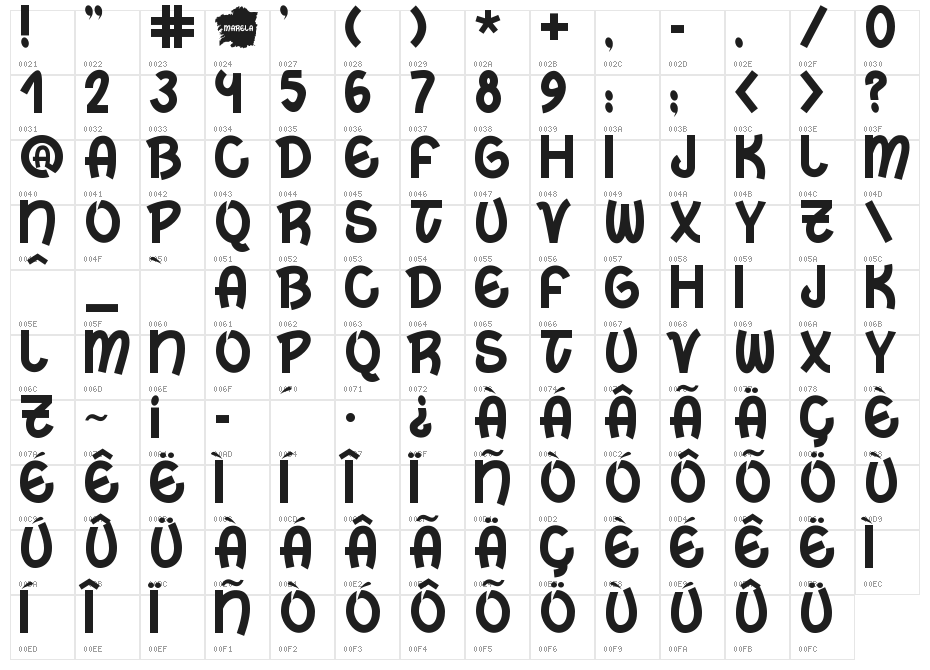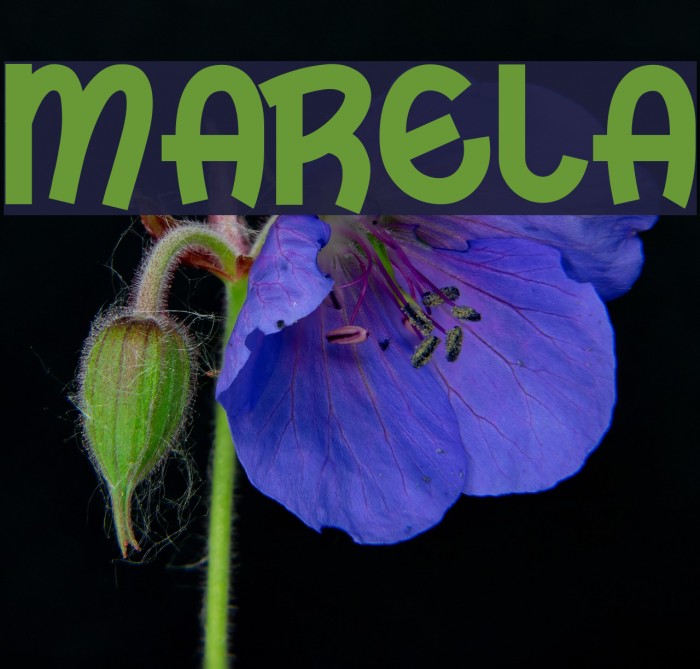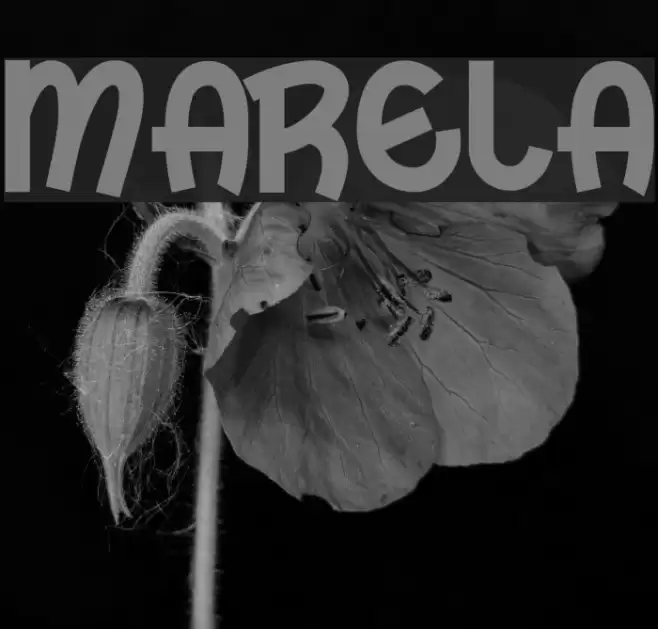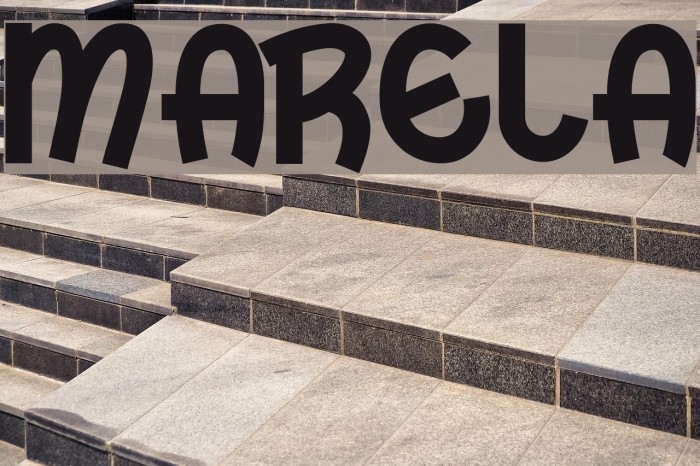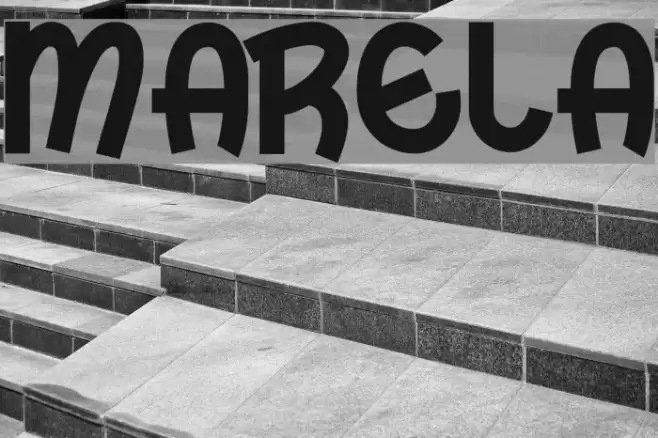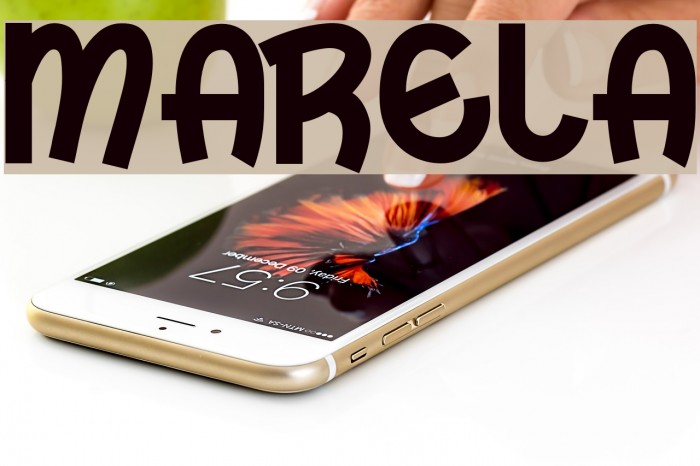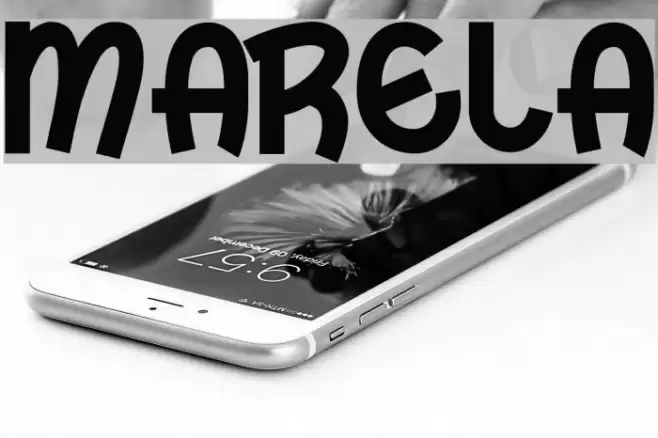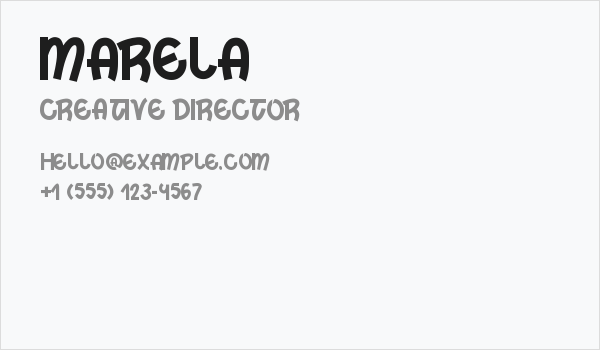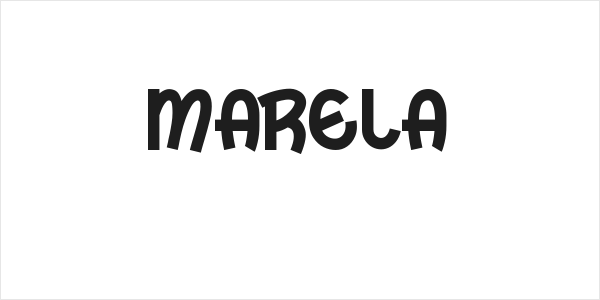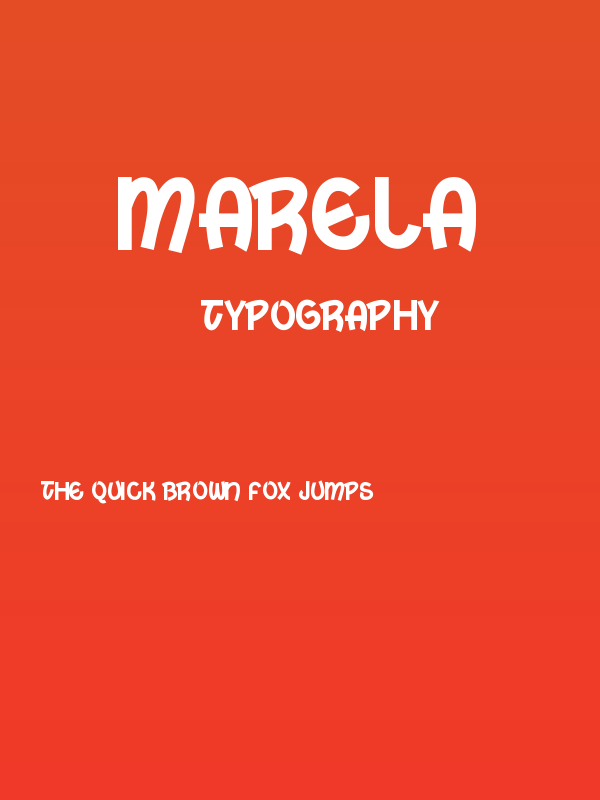
Marela Font
Marela Description
This font features a bold and dynamic style with a strong presence, characterized by its thick strokes and unique, playful curves. The uppercase letters exhibit a distinct flair, with some characters incorporating subtle serifs and others showcasing rounded elements. The lowercase letters maintain a consistent style, complementing the uppercase with their bold and slightly whimsical design. Numbers are equally bold, ensuring visibility and impact. Special characters are crafted with the same attention to detail, making them stand out. Overall, this font exudes a sense of creativity and energy, making it suitable for eye-catching designs.
| Proposed Projects | Ideal for posters, branding, headlines, and creative projects requiring a bold statement. |